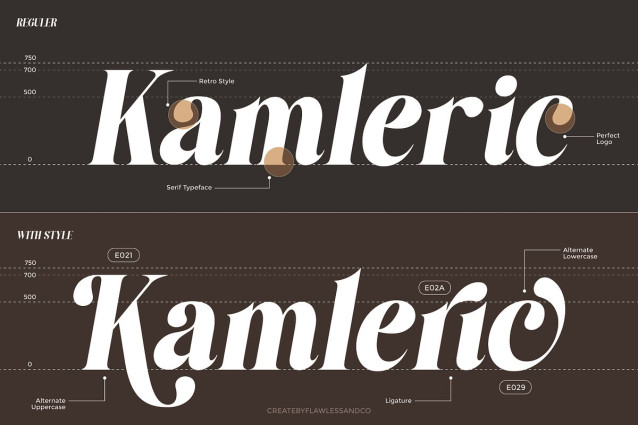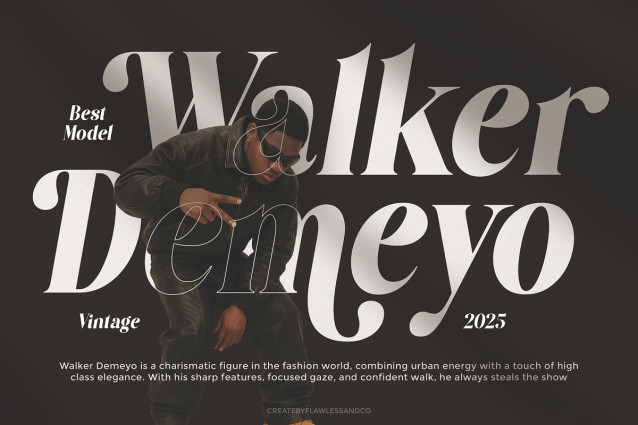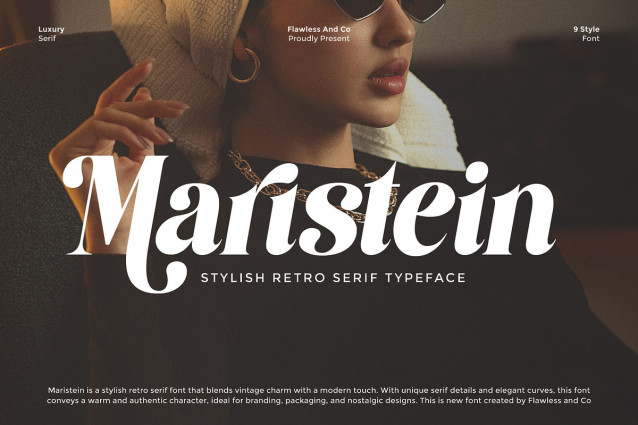
Maristein Font
Maristein Font is a stylish retro serif font that perfectly blends vintage aesthetics with a fresh modern twist. Featuring bold serif details and graceful curves, this font radiates elegance while keeping a nostalgic charm. Its distinctive character makes it a versatile choice for branding, logos, packaging, and editorial designs that need a touch of sophistication and personality.